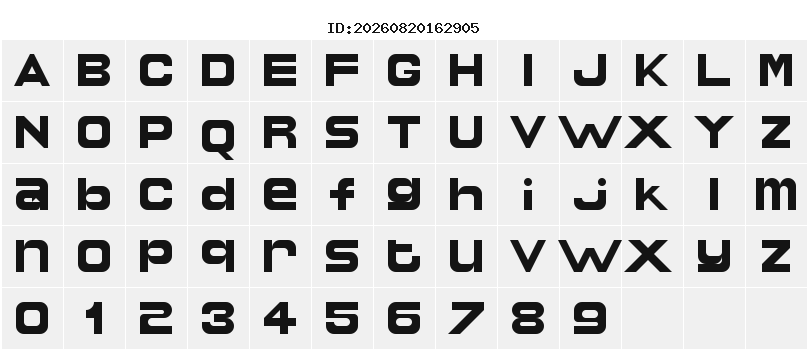
Serioucity 3 Preview
• Font Name: Serioucity 3
• Font ID: FontStruct Serioucity 3
• Full Font Name: Serioucity 3 Regular
• PostScript Name: Serioucity-3
• Character Count: 78
• Designer: Daniel Lyons
• Description: ‚ÄúSerioucity 3‚Äù was built with FontStruct ‚ÄúSerioucity 3‚Äù is based on ‚ÄúSerioucity #2‚Äù by ‚ÄúDaniel Lyons‚Äù (http://fontstruct.com/fontstructors/dlyons123)
About Serioucity 3.ttf
Serioucity 3.ttf is a modern, elegant sans-serif font designed for ultimate readability and visual harmony. Perfect for branding, headlines, web design, and print materials.